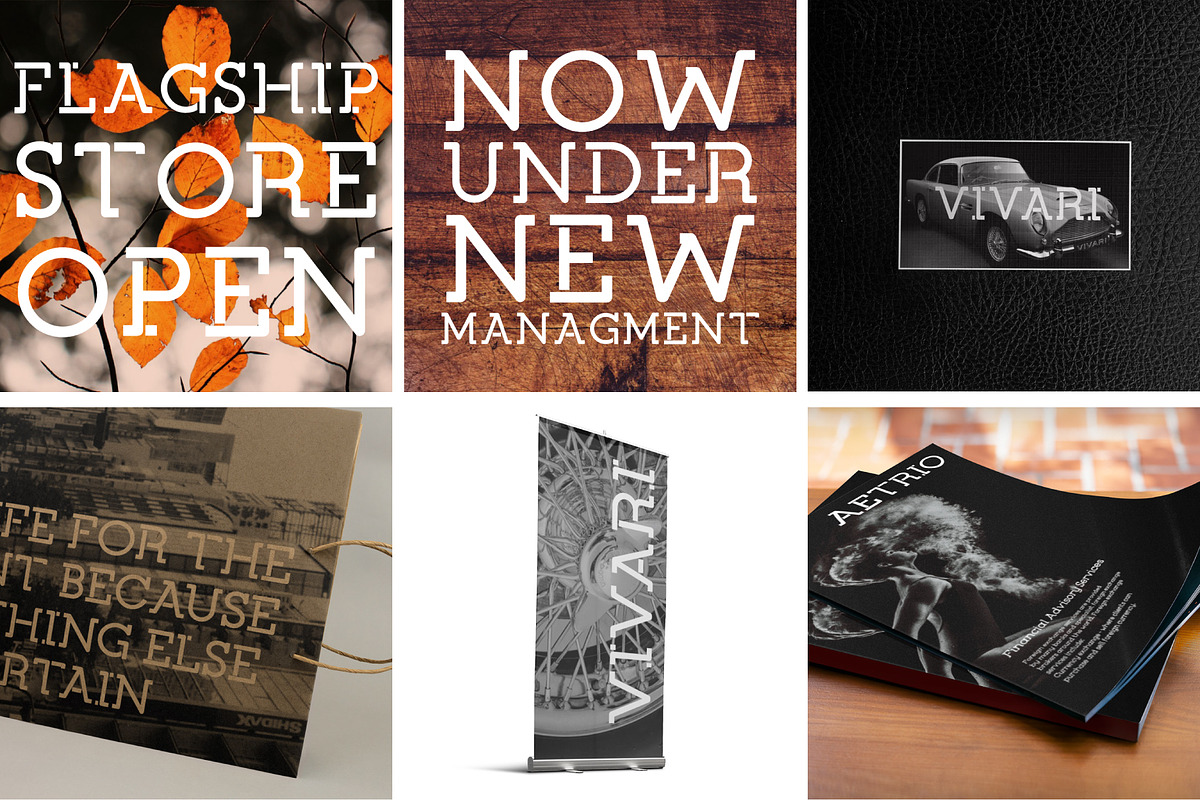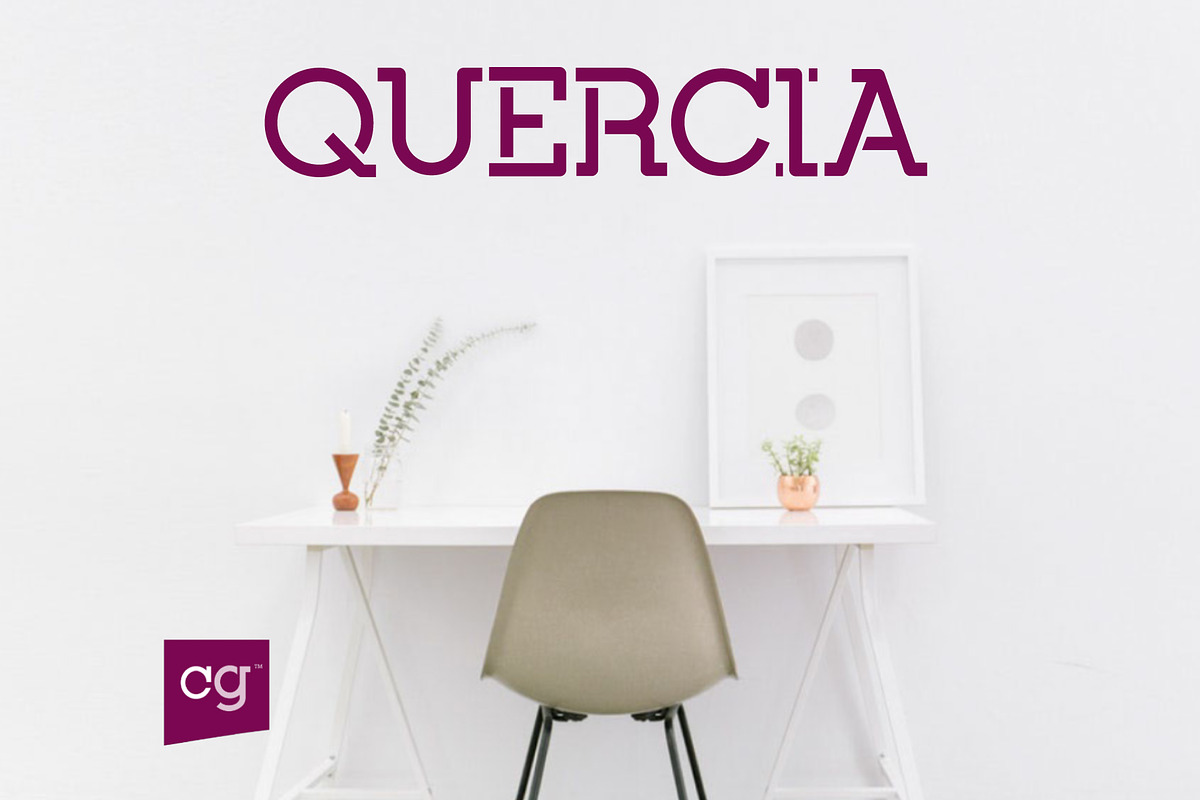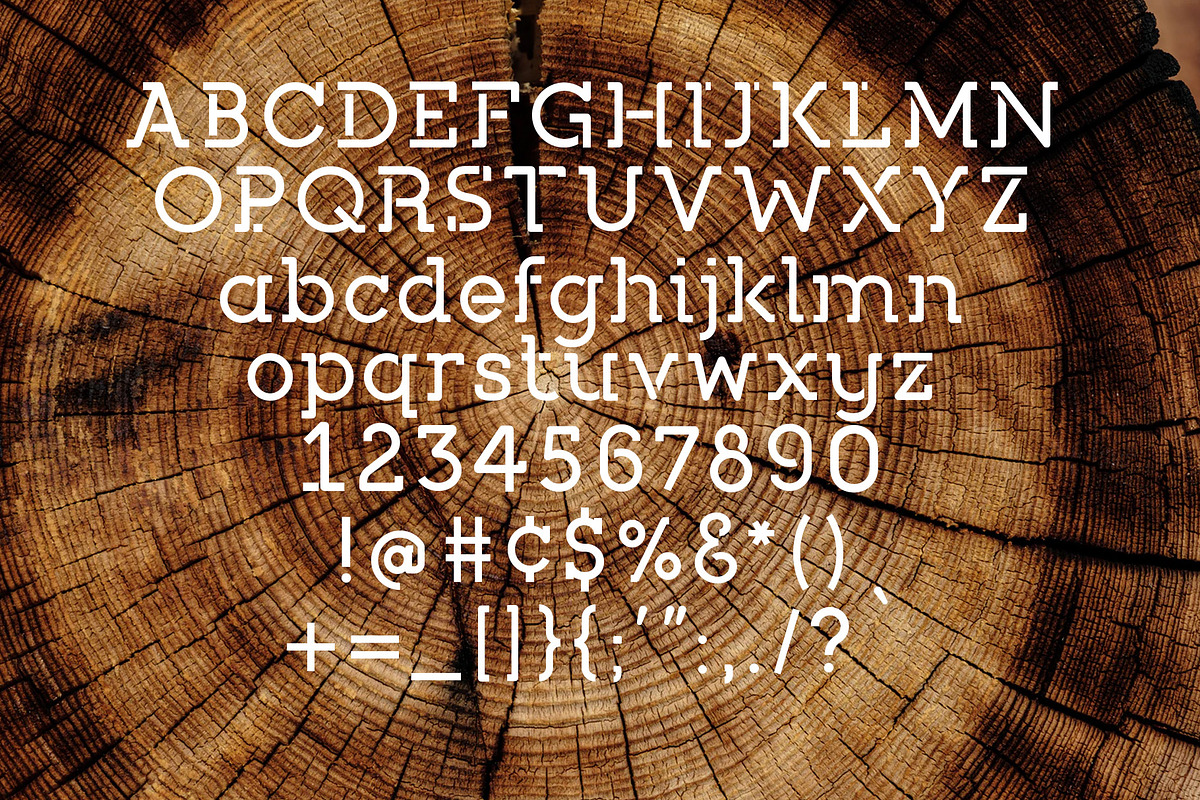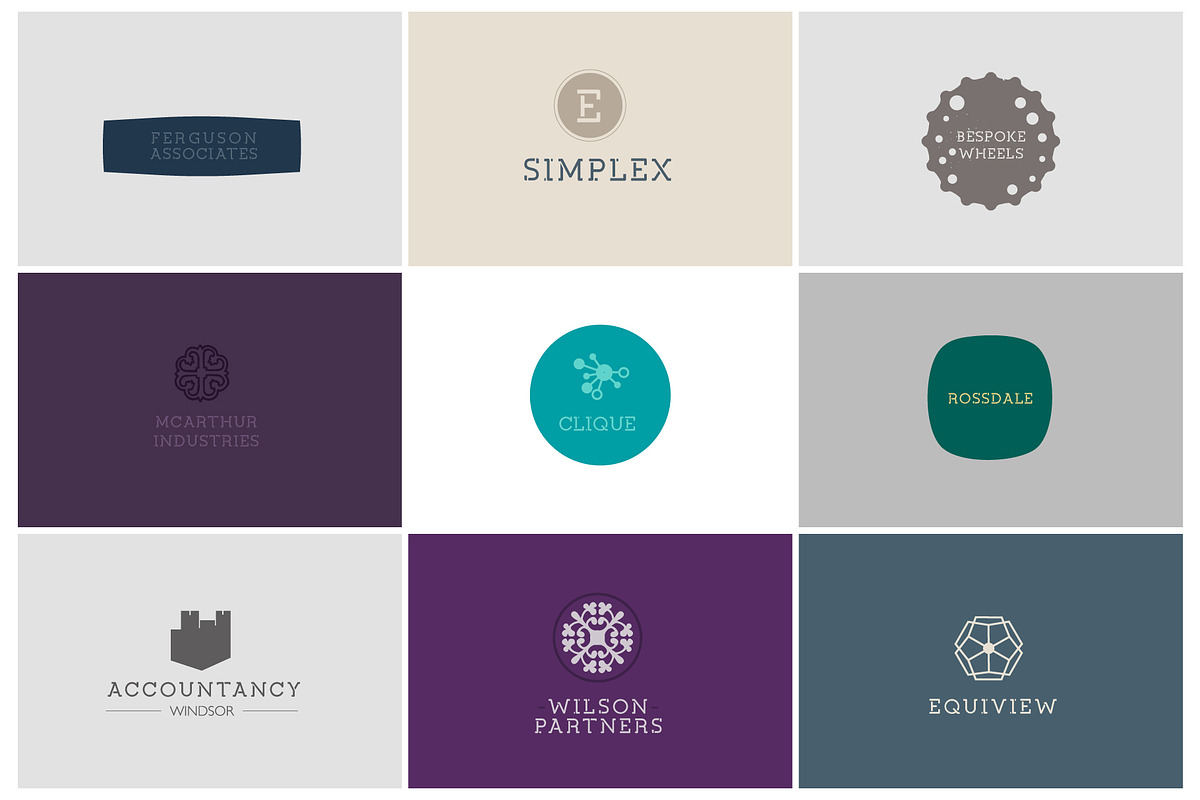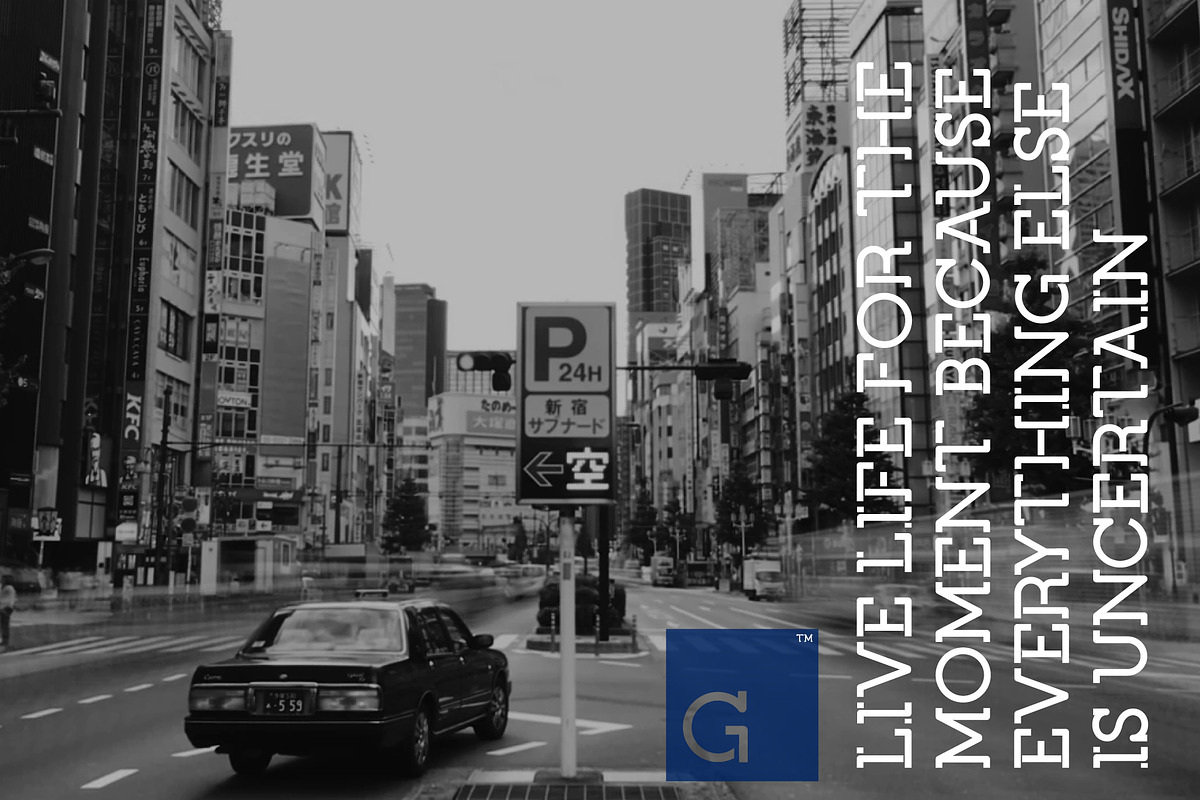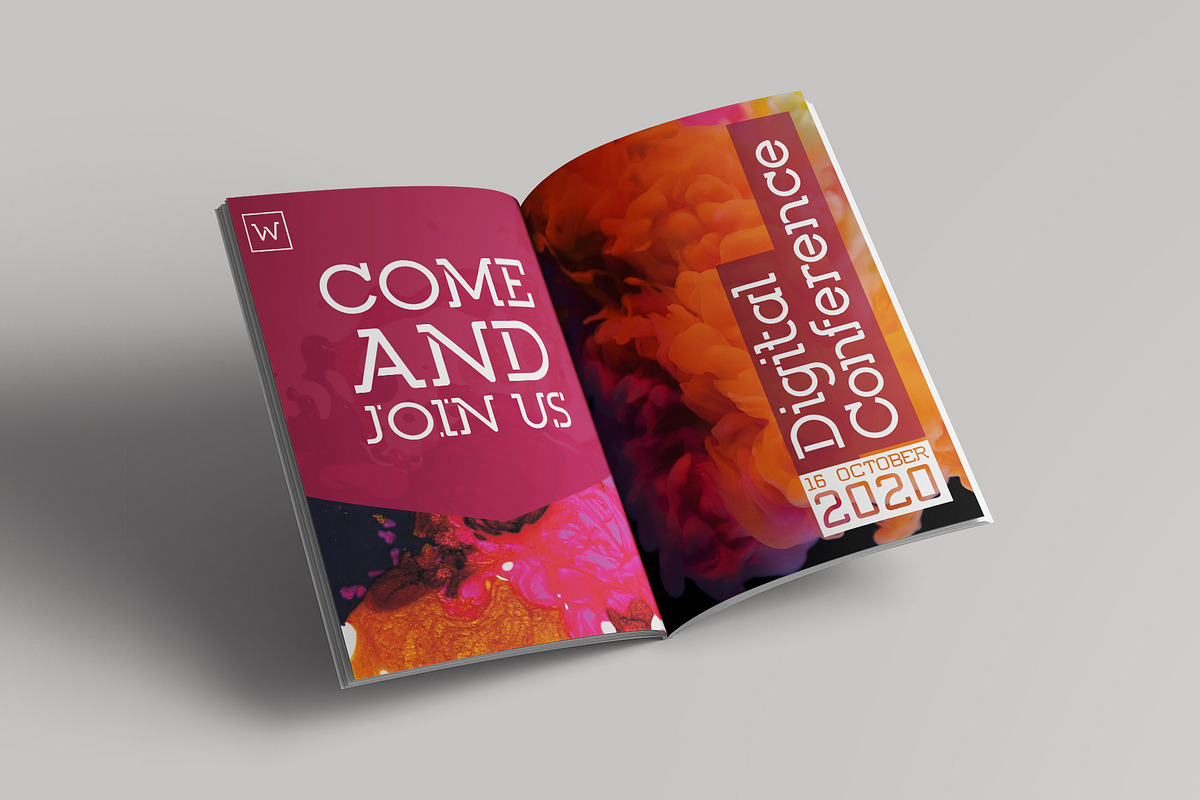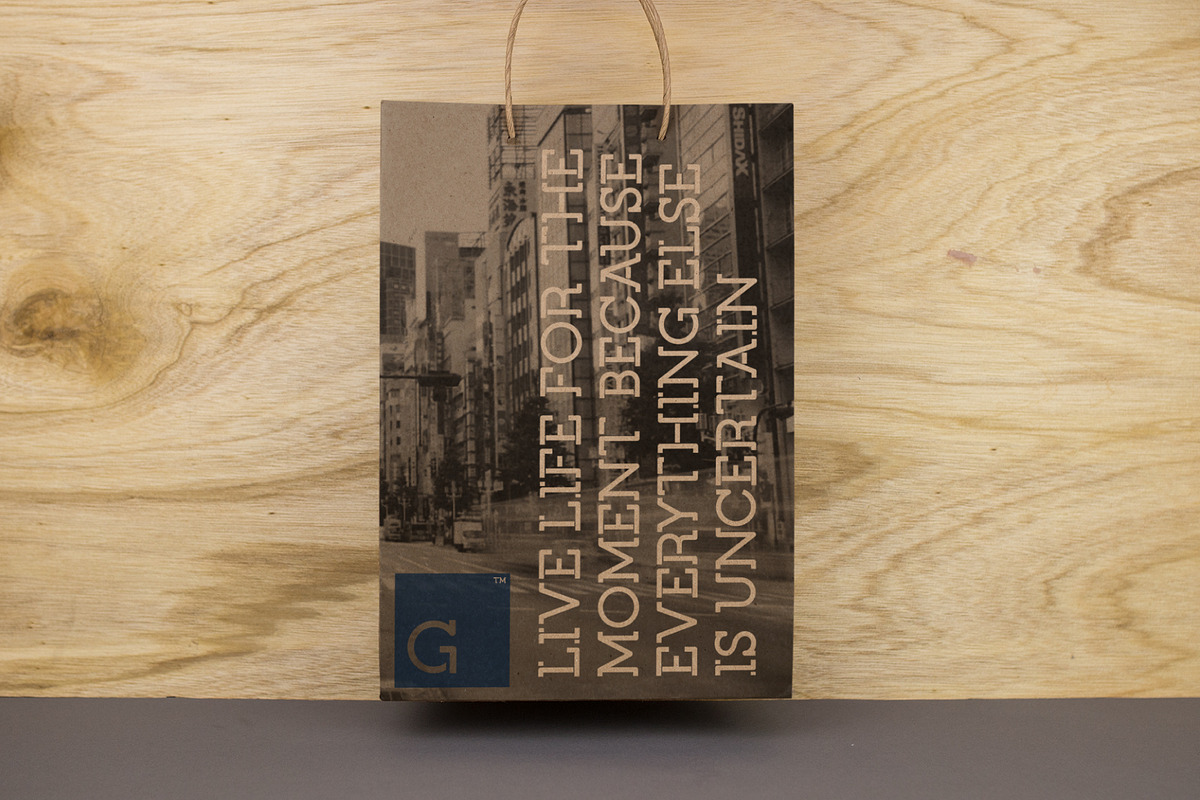
Quercia | Logo Stencil Slab Font
Quercia is a slab serif typeface built to stand out. The slab stencil effect is squared off, giving the font a blocky, sturdy appearance and works well for company branding and identities...
Numbers, Punctuation, Multi-Language support and Alternates, with over 350 Glyphs per font
Quercia is vibrant and robust and features extensive language support. Excellent for headlines, captions, Logos, Identities and at large sizes, its industrial stencil effect attracts attention, while its curved and unattached serif terminals make it approachable with a stencil like effect.
Ideally suited for advertising and packaging, editorial and publishing, logo, branding and creative industries, poster and billboards, small text, wayfinding and signage as well as web and screen design.